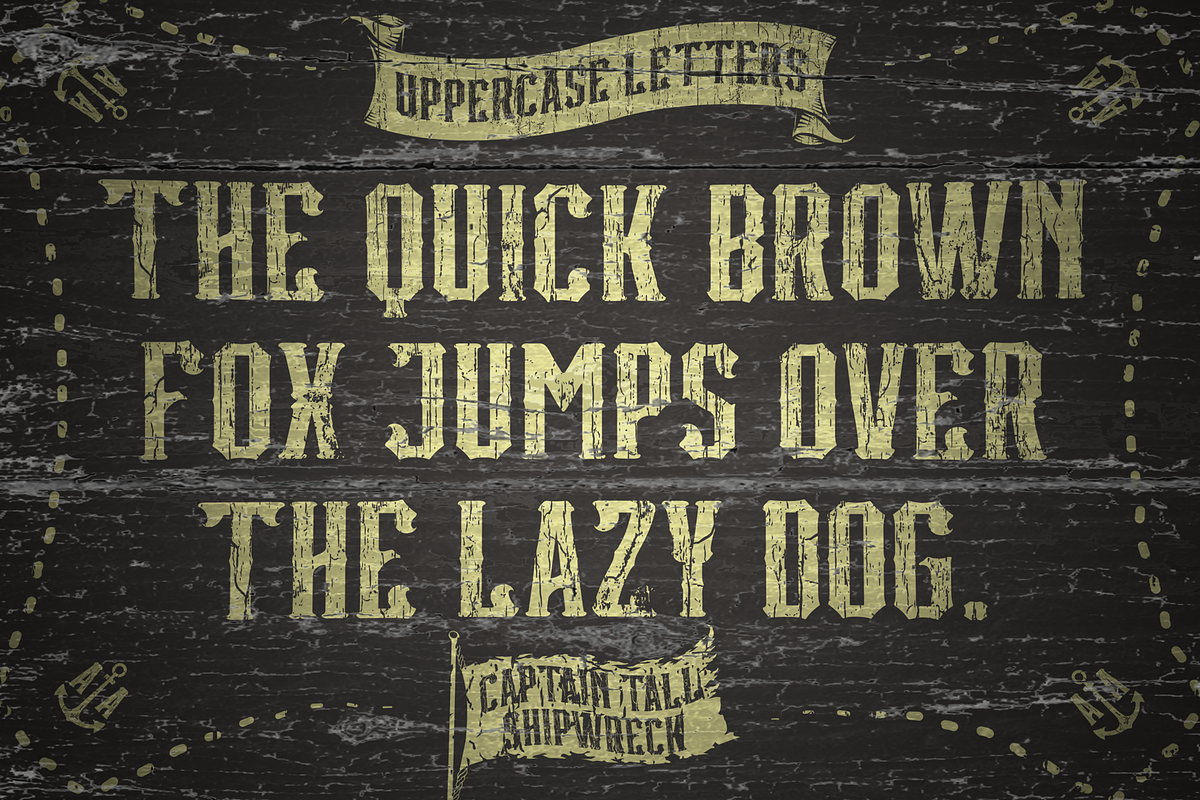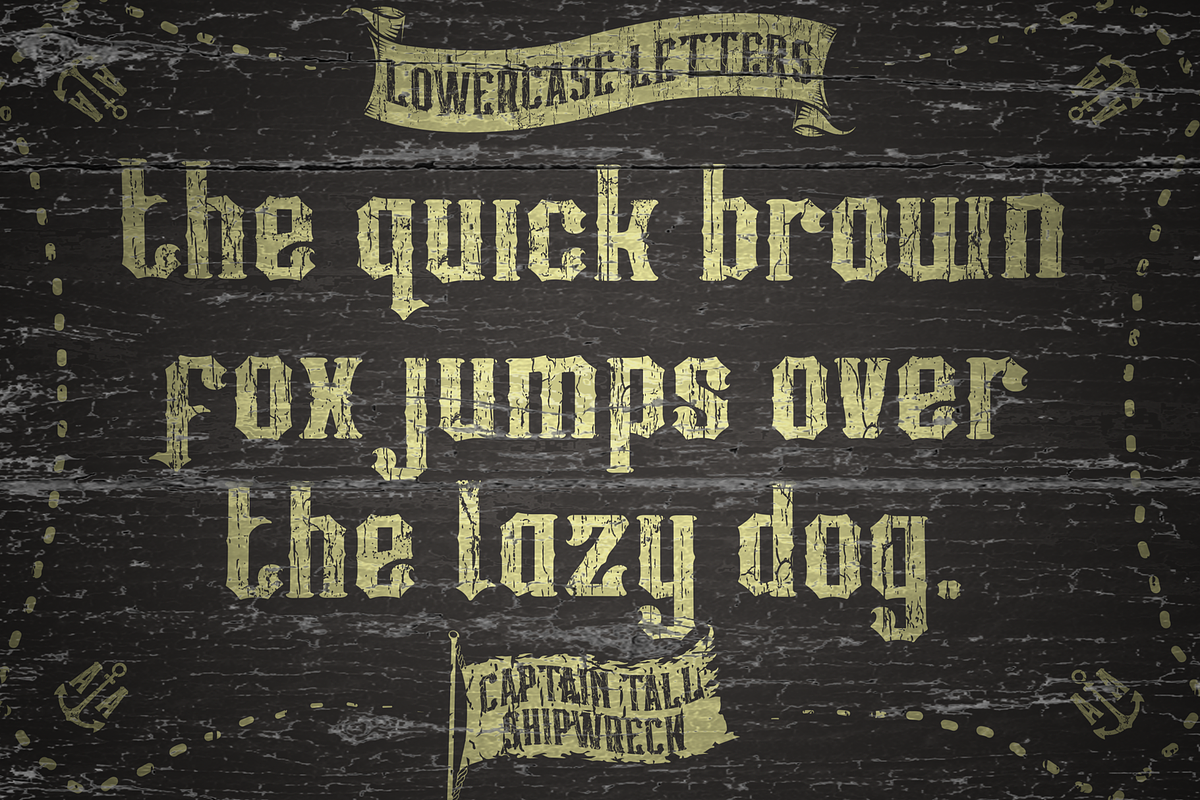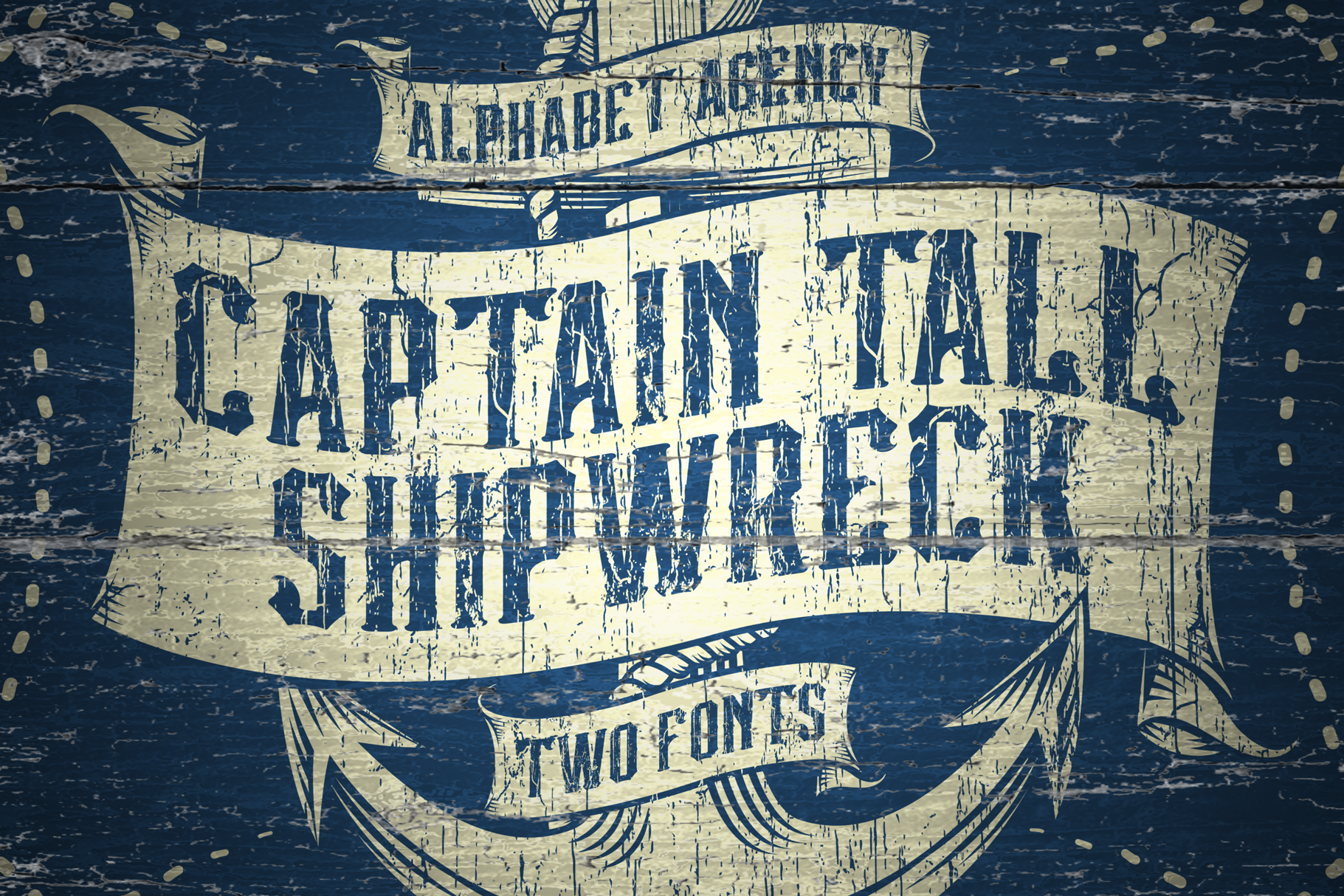
CAPTAIN TALL SHIPWRECK FONT DUO
The font is inspired by the success of the original Captain Shipwreck font available here https://creativemarket.com/AlphabetAgency/95241-Captain-Shipwreck-Font
The original design is influenced by beer labels, biker gang jackets, as well as pirate and outlaw themes. It is designed to give a traditional bold and aged rugged look. The distressed look is designed to give a cracked paint appearance.